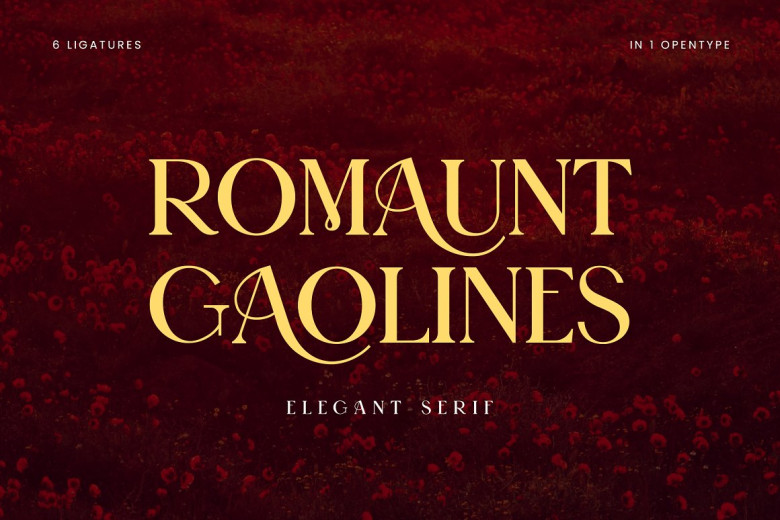
Romaunt Gaolines Font
Romaunt Gaolines is an elegant, yet modern serif font. Whether in black and white museum-quality prints or full-color high definition graphics on a building front this traditional-style serif font does not look wrong. This font is perfect for a wide variety of projects, such as signature, stationery, logo, wedding quotes picture book Typography quotes magazine cover logo or website head clothing and even packaging design etc.
Romaunt Gaolines Serif Font